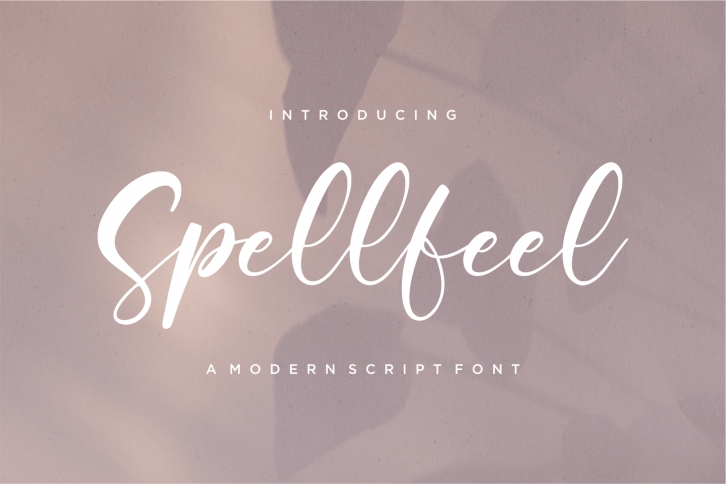
Proudly Present, Spellfeel
Spellfeel is a Modern Script Font
Spellfeel is perfect for product packaging, branding project, megazine, social media, wedding, or just used to express words above the background.